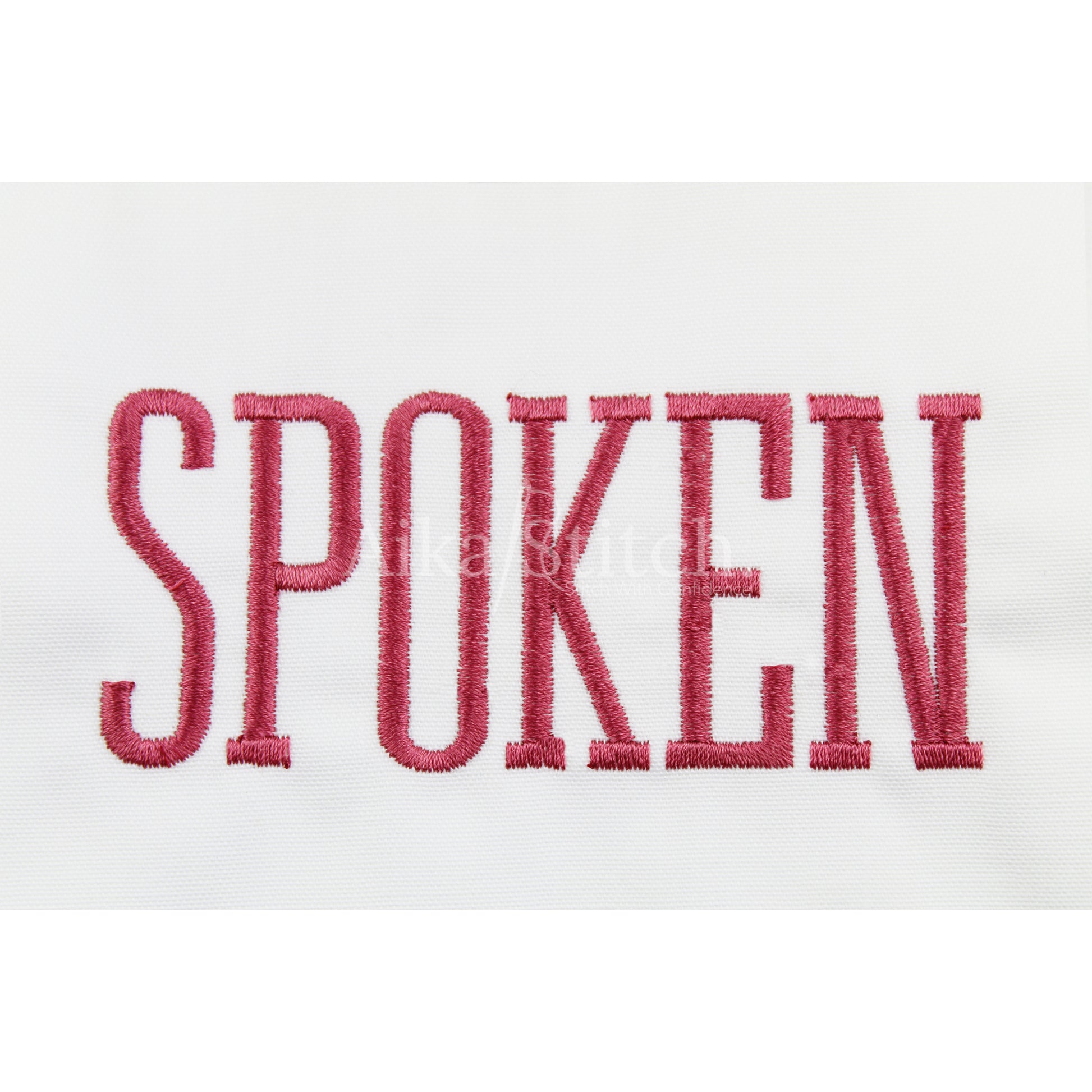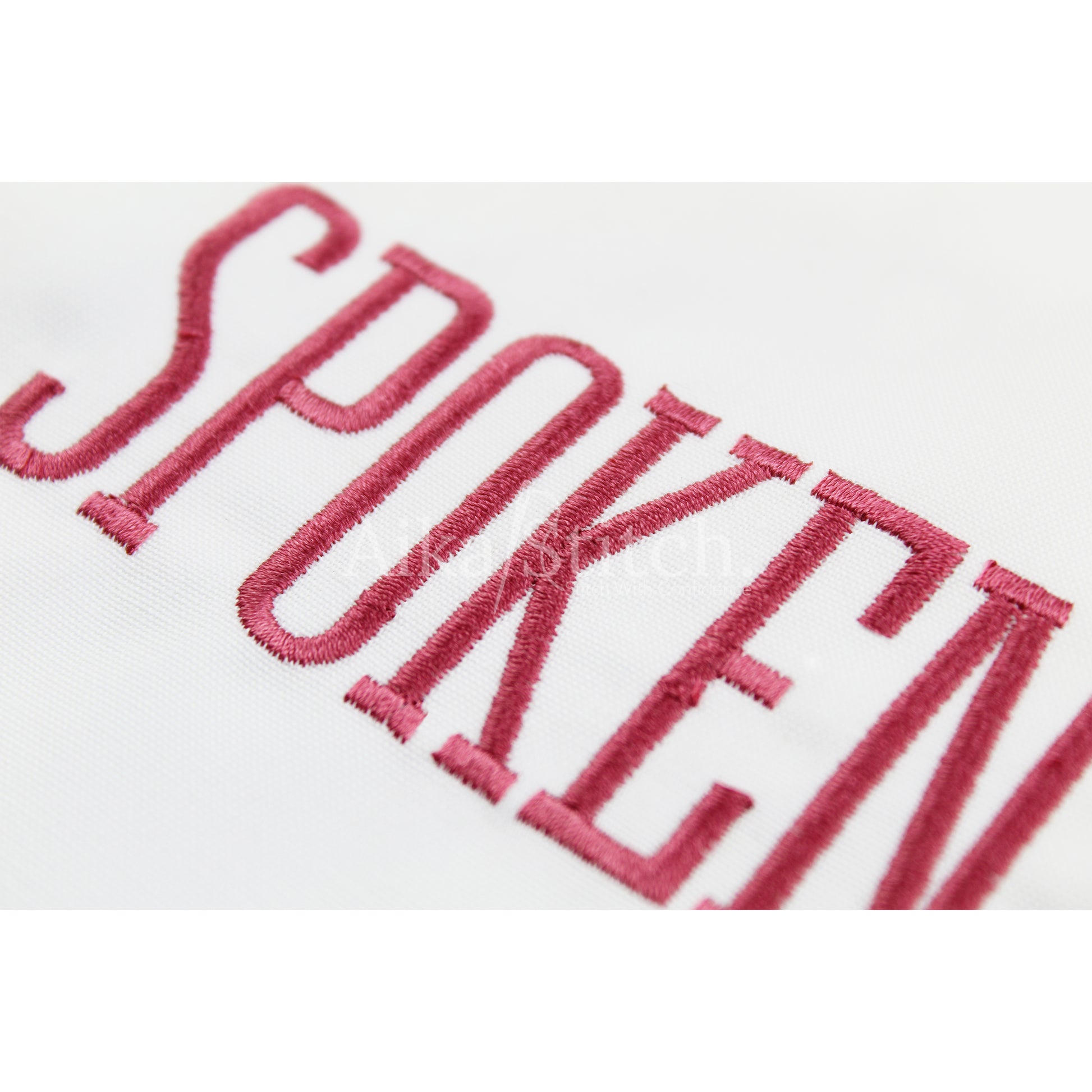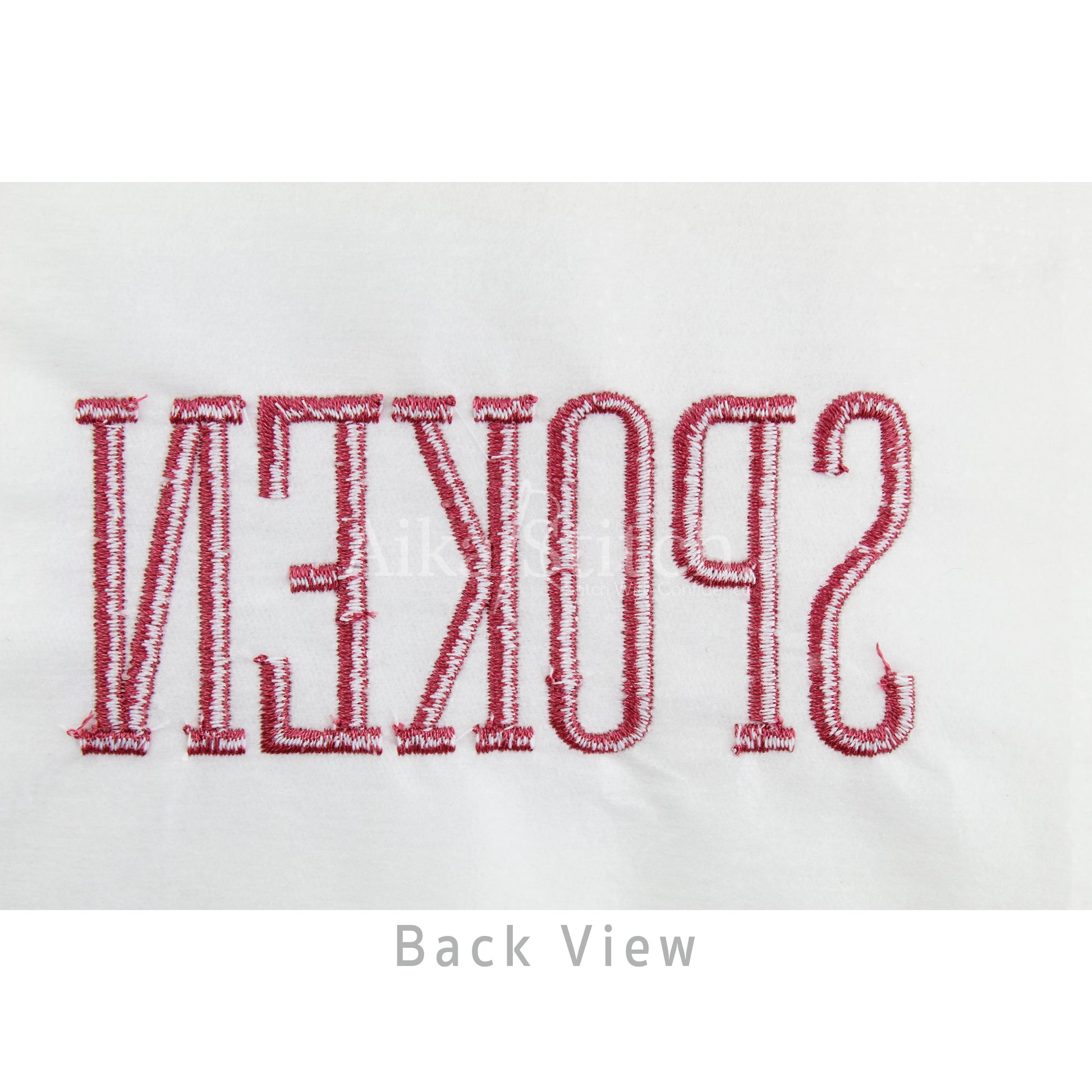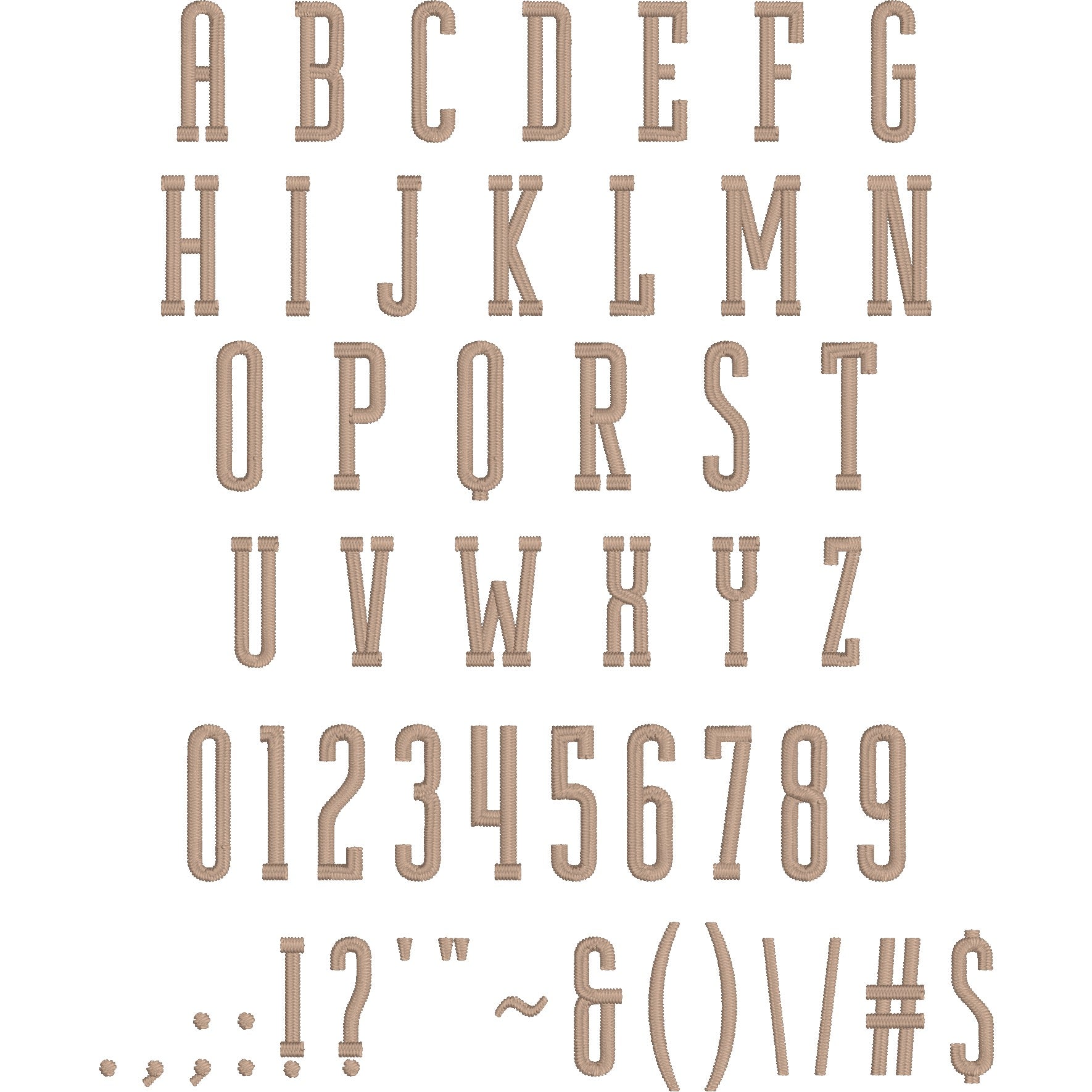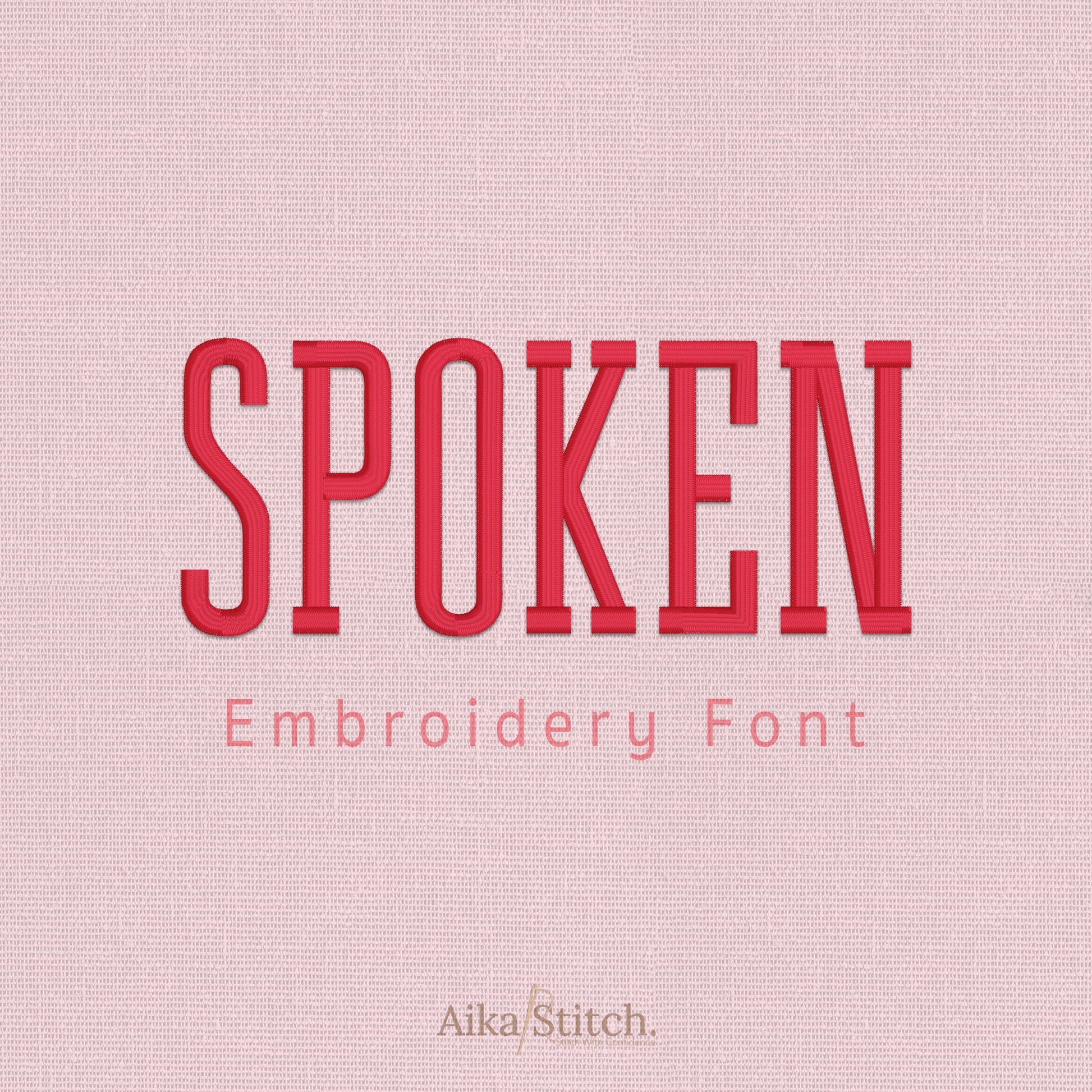
Spoken Modern Simple Embroidery Font
Spoken is a Modern Simple machine embroidery font featuring beautiful satin stitch lettering. Perfect for shirts, towels, hats, baby gifts, monograms, and small business embroidery projects.